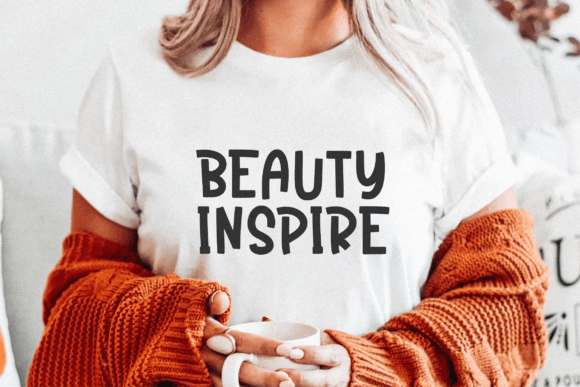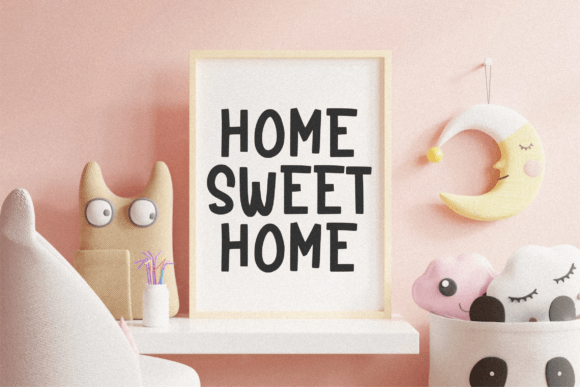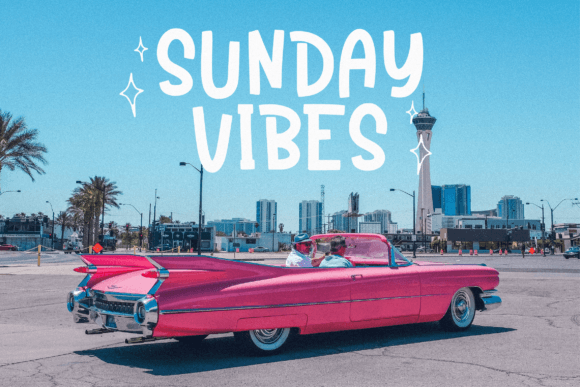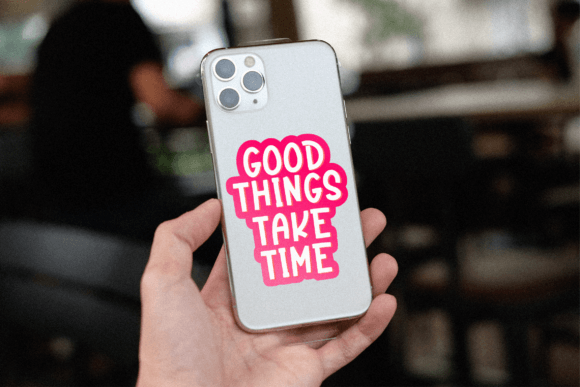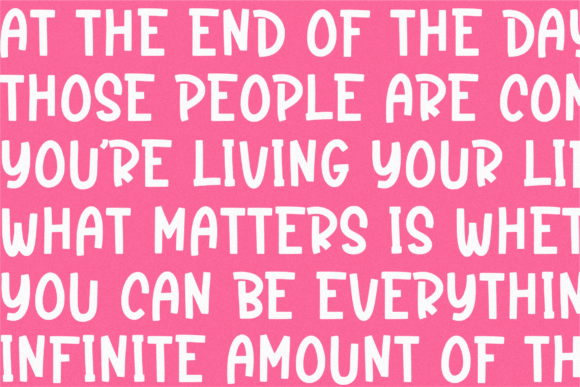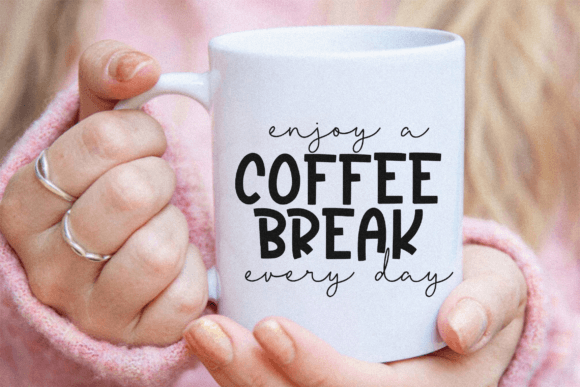
Introduction to Maggie Charm Font
Maggie Charm feels playfully handmade and delivers an incredibly playful handwritten font.
Use this display font to add that special playful touch to any design idea you can think of Masterfully designed to become a true favorite, this font has the potential to bring each of your creative ideas to the highest level.
Key Features of Maggie Charm Font
Why Choose Maggie Charm Font?